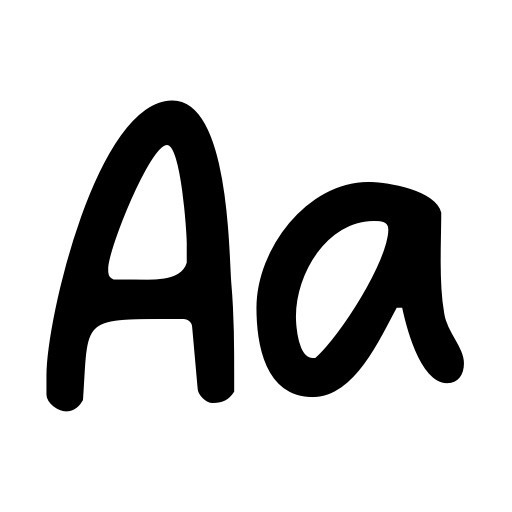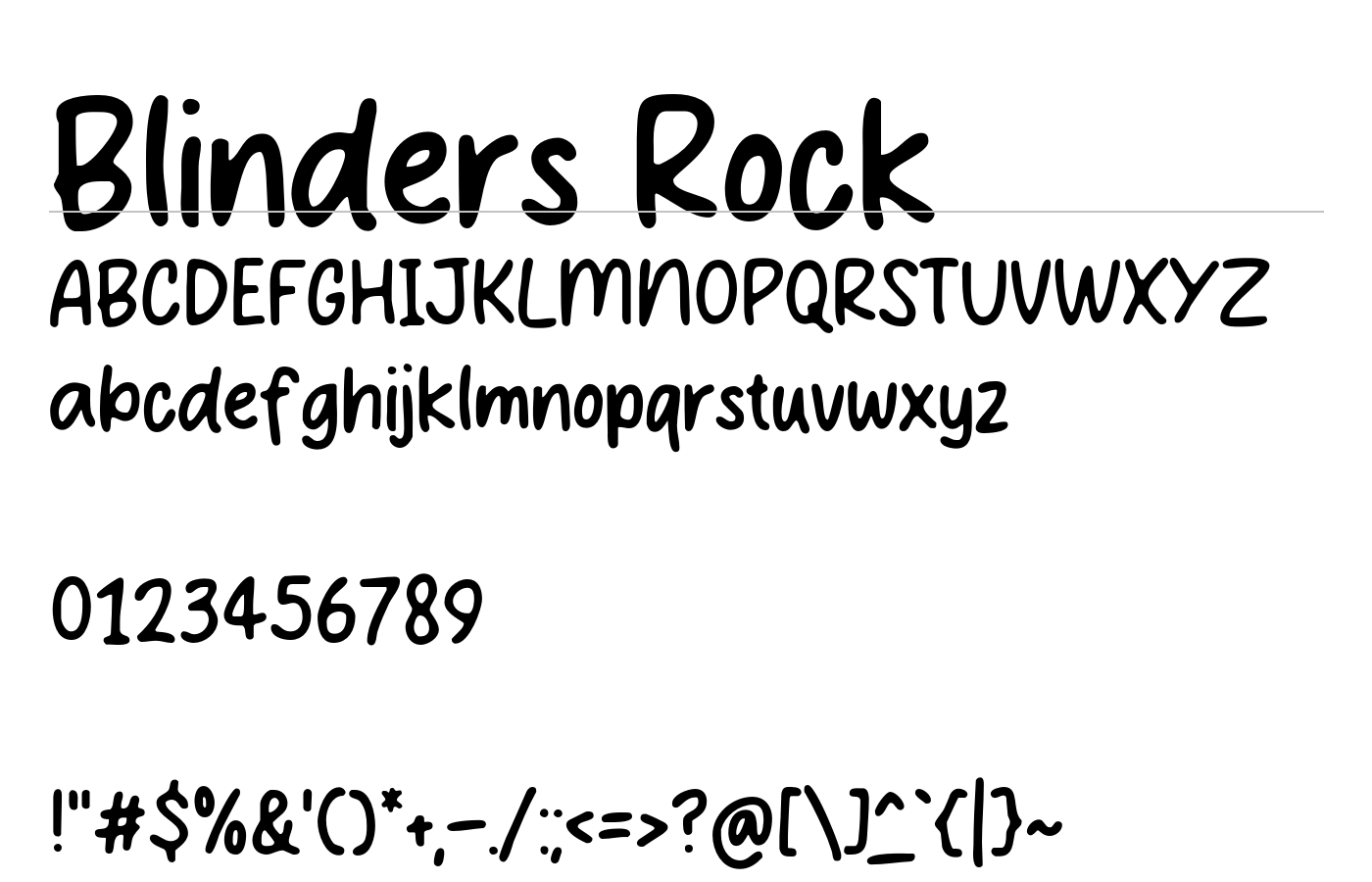
Blinders Rock is a playful, casual handwritten sans serif font with a friendly and approachable feel. Its rounded, slightly irregular letterforms and moderate x-height create an inviting, informal style perfect for creative projects, children’s materials, and relaxed branding. This font works well for headlines, logos, and packaging where a personal, fun touch is needed.
Blinders Rock Font
About Blinders Rock Font